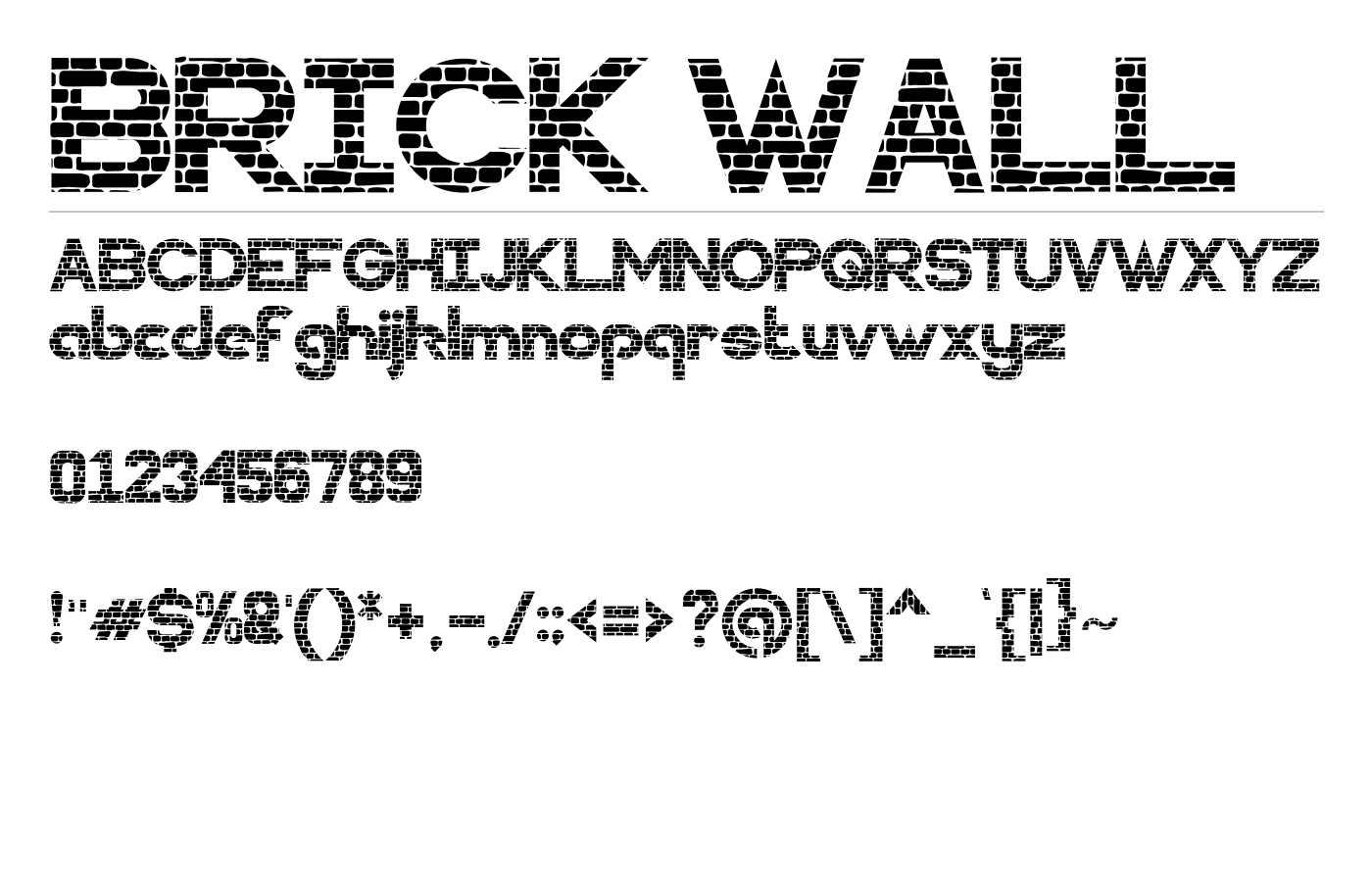
Brick Wall is a bold, geometric sans serif font featuring a distinct brick pattern inside each letter, creating a textured and industrial feel. Its strong, blocky shapes combined with the patterned fill make it perfect for eye-catching headlines, logos, or branding that seeks to convey strength, urban style, or construction themes. This font works especially well for creative projects needing a rugged yet stylish look with a unique visual impact.